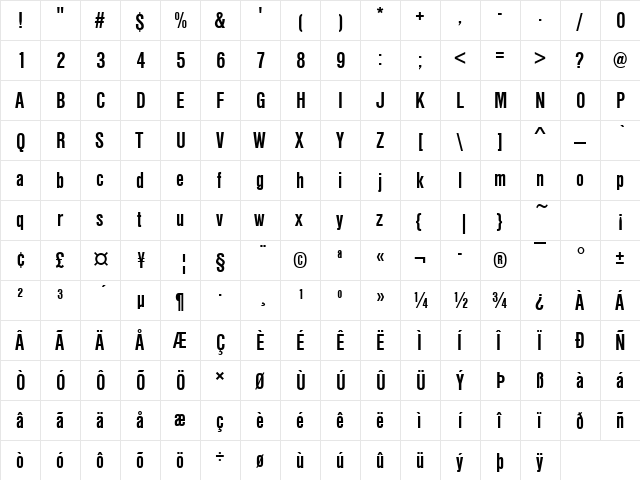
Nimbus Sans Becker DCon Bold
Design Context for Nimbus Sans Becker DCon Typeface
Nimbus Sans Becker DCon takes a measured approach to typography — its balanced proportions and neutral character make it a reliable workhorse for both digital and print work. Its bold stroke weight gives it real presence on the page.